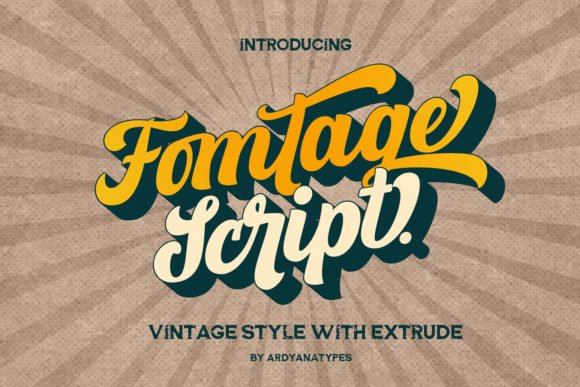
Finding Inspiration in the Past
Have you ever been rummaging through your grandmother’s attic, stumbling upon old photographs and letters that transport you to a bygone era? The nostalgia washes over you, and suddenly, you’re flooded with creative ideas. For designers, this is a common experience, and it’s exactly what the Fomtage Script Font aims to evoke.
With its playful, handwritten feel, the Fomtage Script Font delivers an incredible vintage aesthetic that’s perfect for adding a touch of nostalgia to your designs. Whether you’re working on a retro-themed campaign or simply want to give your brand a unique edge, this font is sure to inspire.
As a designer, you know the value of a well-chosen font. The Fomtage Script Font is more than just a pretty face – it’s a powerful tool that can help you connect with your audience on a deeper level. So why not give it a try and see where the past takes you?
Fomtage Script Font Key Features
- Unique Characteristics: Handwritten, cursive script font with a touch of elegance and sophistication, perfect for creative and design projects
Fomtage Script Font Review
I recently had the chance to work with the Fomtage Script Font, and I have to say, it’s a unique and stylish addition to any design project. ✨ The font’s flowing script style makes it perfect for creating a whimsical or elegant feel, depending on the context. It’s ideal for use in invitations, quotes, and even branding for creative businesses.
Here are some things that work well with Fomtage Script Font:
- ✨ Unique and eye-catching script style
- ✨ Perfect for creating a whimsical or elegant feel
- ✨ Ideal for invitations, quotes, and creative branding
- ⚠️ Limited character set, which may cause issues with long text
- ⚠️ May not be suitable for use in small font sizes, as it can become difficult to read
- ⚠️ May require additional formatting to ensure proper spacing and alignment
Overall, I think the Fomtage Script Font is a great addition to any designer’s toolkit, but it’s essential to be aware of its limitations and use it judiciously. With careful consideration and planning, this font can add a touch of elegance and sophistication to any design project.
Fomtage Script Font is ideal for:
- Typography-based art and design
For best results, use Fomtage Script Font in conjunction with other elegant and cursive fonts to create a visually appealing design.